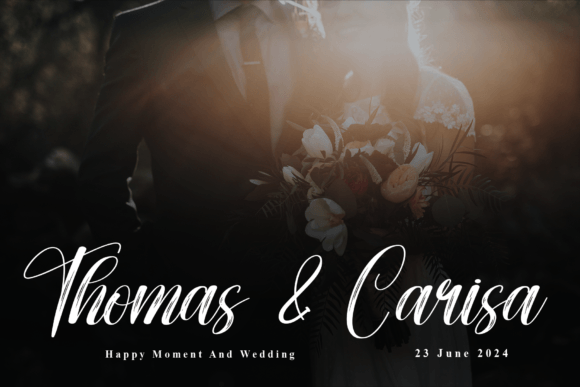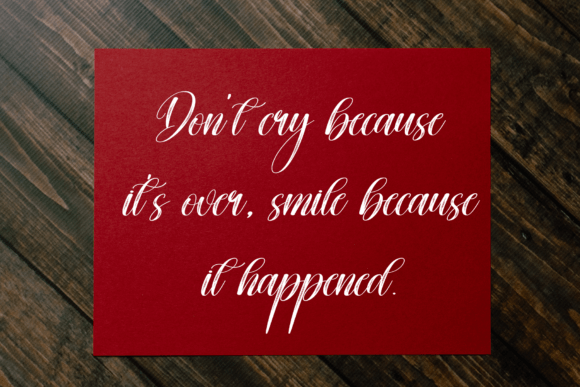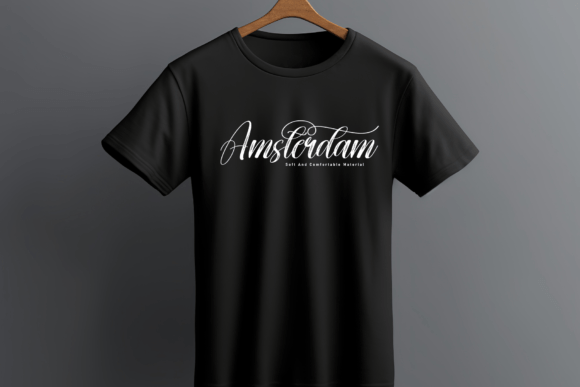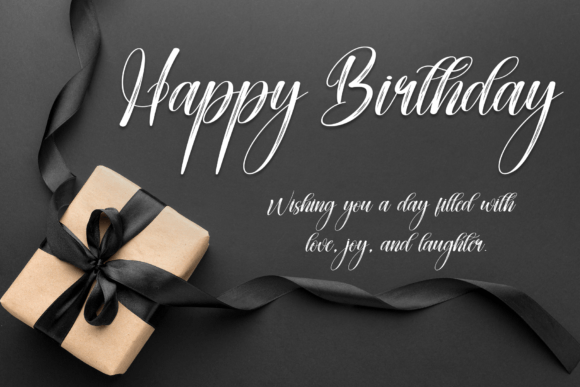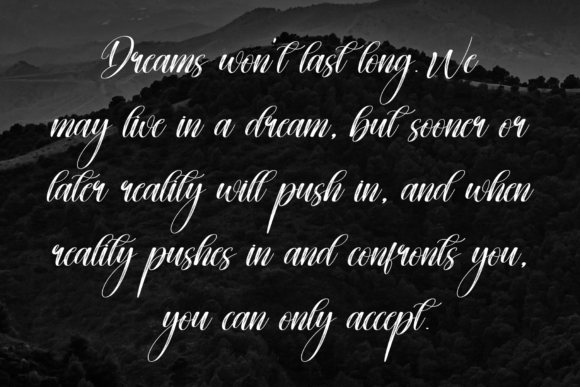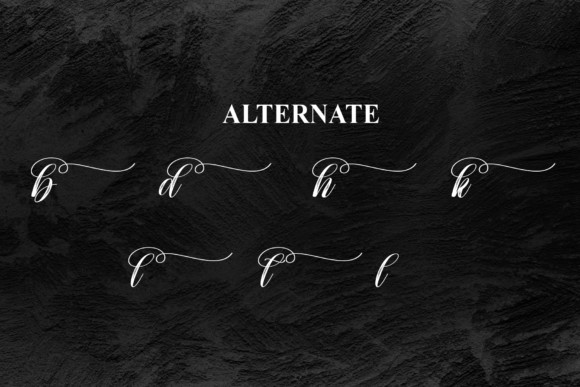
Introducing Handwritten Font: The Timeless Choice for Designers and Crafters
Are you looking for a font that adds a personal touch to your designs? Look no further than Handwritten Font, a lovely and timeless script that is perfect for creating eye-catching logos, branding, and quotes. With its unique and beautiful touch, this font is sure to make your design come alive!
The Charm of Handwritten Font
Handwritten Font is a carefully crafted script that mimics the look and feel of handwritten text. Each letter is meticulously designed to have a distinct character, making it perfect for adding a personal touch to your designs. Whether you’re a designer, crafter, or DIY enthusiast, this font is sure to inspire your creativity.
Why Choose Handwritten Font?
So, what makes Handwritten Font the best choice for your design needs? Here are just a few reasons why designers and crafters love this font:
• Unique and Beautiful Touch: Every letter in Handwritten Font has a unique and beautiful touch that adds a personal touch to your designs.
• Elegant and Timeless: This font is designed to be timeless, making it perfect for creating designs that won’t go out of style.
• Versatile: Handwritten Font can be used for a wide range of design projects, from logos and branding to quotes and social media graphics.
• Ease of Use: This font is easy to read and works well in both digital and print formats.
Handwritten Font is a versatile script that is perfect for designers and crafters alike. Here are just a few ways you can use this font in your designs:
• Logo Design: Create a unique and memorable logo for your business or brand with Handwritten Font.
• Branding: Use this font to create a consistent brand identity across all your marketing materials.
• Quotes and Social Media Graphics: Add a personal touch to your quotes and social media graphics with Handwritten Font.
• DIY Projects: Use this font to add a personal touch to your DIY projects, such as handmade cards and gift tags.
Tips for Using Handwritten Font
Here are a few tips for getting the most out of Handwritten Font:
• Experiment with Colors: Try pairing Handwritten Font with different colors and textures to add depth and interest to your designs.
• Mix and Match: Combine Handwritten Font with other fonts and graphics to create a unique and eye-catching design.
• Keep it Simple: Don’t be afraid to keep your design simple and clean. Handwritten Font is beautiful on its own, so let it shine!
Handwritten Font is a timeless and lovely script that is perfect for designers and crafters looking to add a personal touch to their designs. With its unique and beautiful touch, this font is sure to make your design come alive! Whether you’re creating logos, branding, or quotes, Handwritten Font is the perfect choice. So why wait? Download Handwritten Font today and start creating your own beautiful designs!